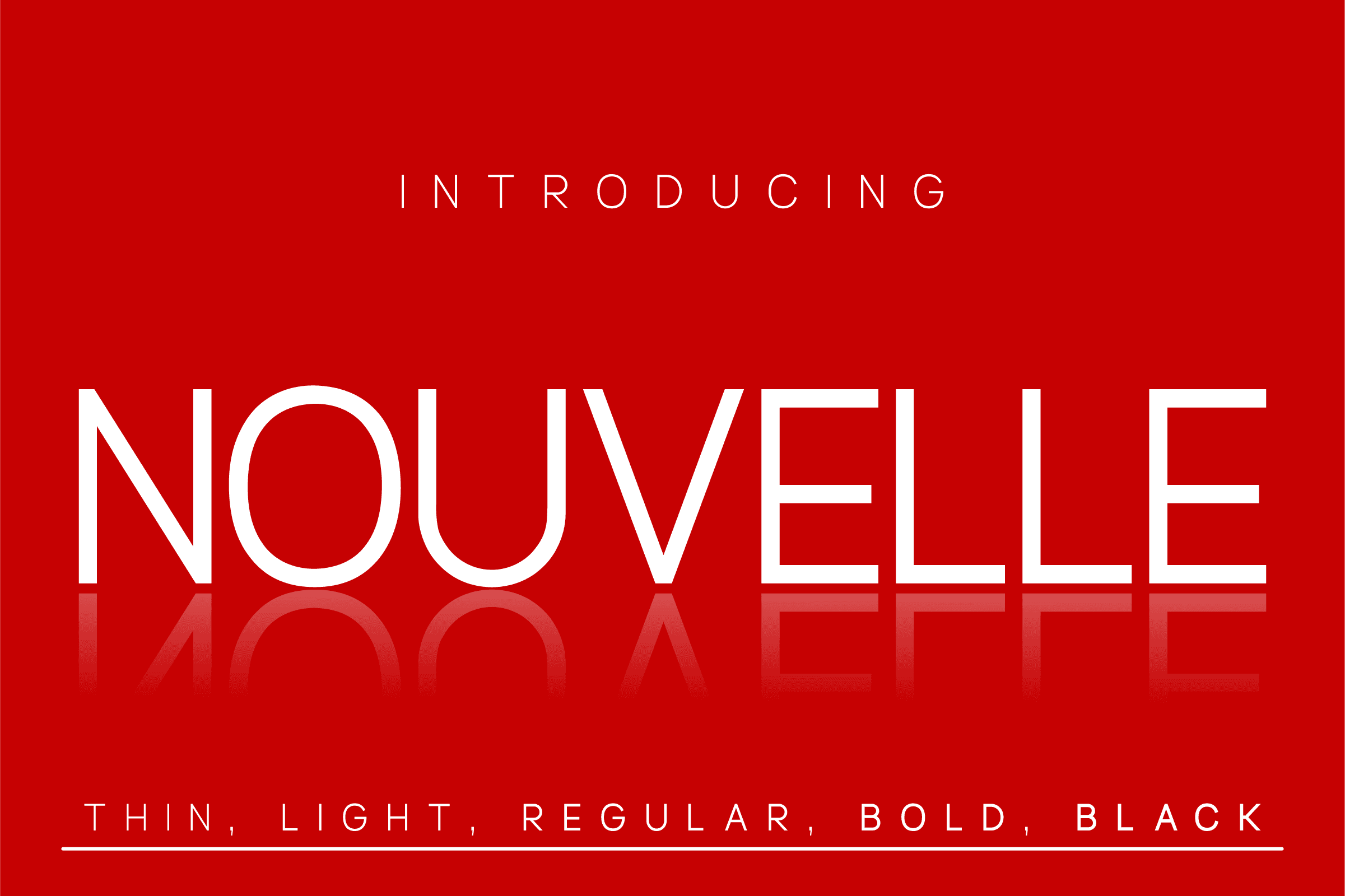
Discover the Nouvelle Font Family: Where Elegance Meets Minimalism In the dynamic world of typography, the Nouvelle Font family emerges as a stunning embodiment of modern elegance and minimalistic design. This versatile sans-serif font features five ...